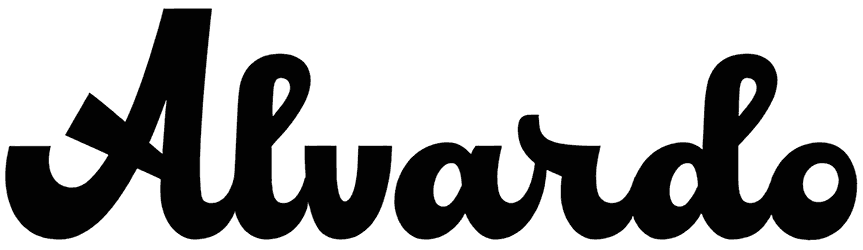
Alvardo Font
Desiring to evoke any friendly and amiable sense in your graphics to inspire many onlookers, especially those who negotiate with mind-numbing reports, so never underestimate this old school font, Alvardo, that is ornamented in the sweet bold and concatenated letterforms.
Just to set out to use this baseball script font in invitations, quotes, pamphlets, posters, logos, T-shirts, or other everyday displays. Right away, give it a try and push charming outcomes.